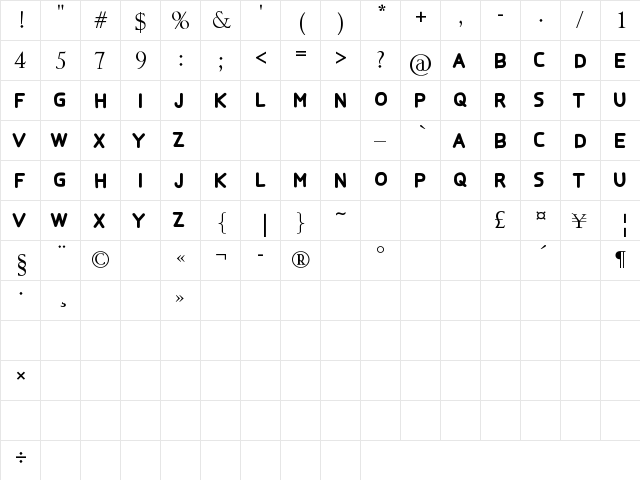
THREELIE Regular
Design Context for THREELIE Typeface
THREELIE takes a measured approach to typography — its balanced proportions and neutral character make it a reliable workhorse for both digital and print work.
Pro Tip: Pair THREELIE with a font of contrasting weight or personality to build a more expressive typographic hierarchy.